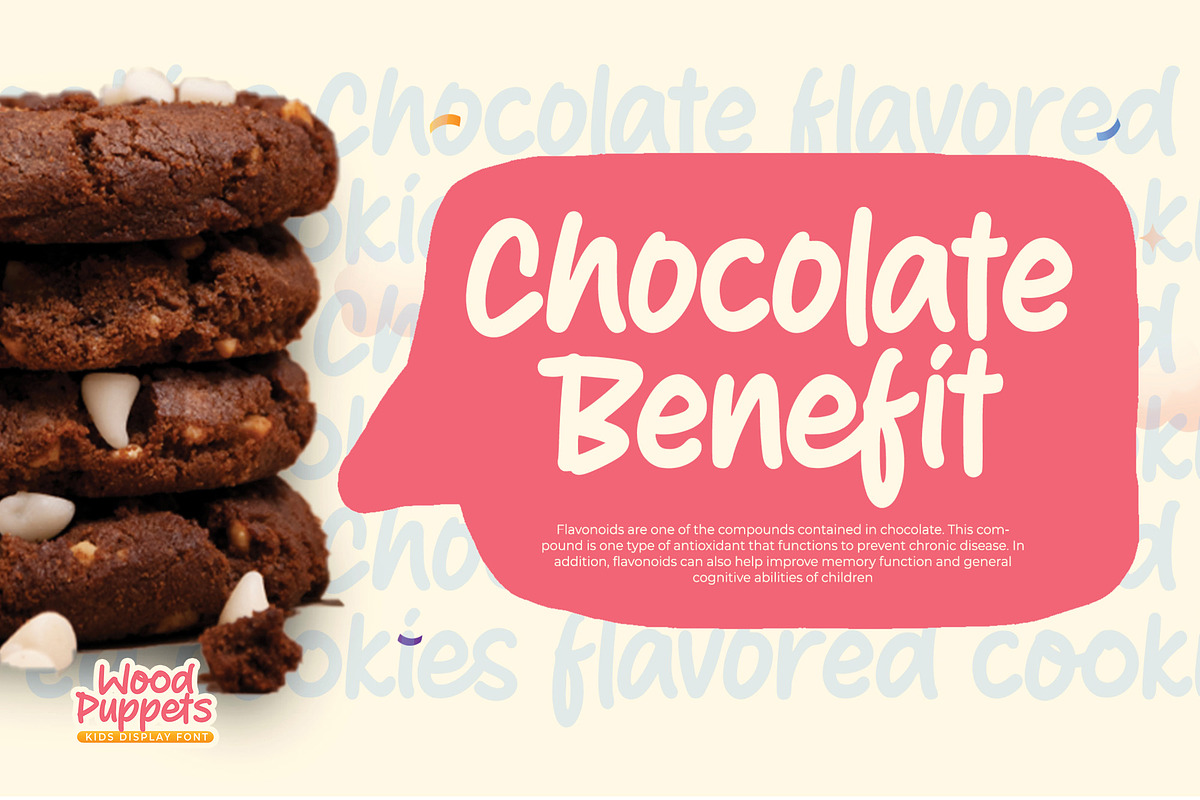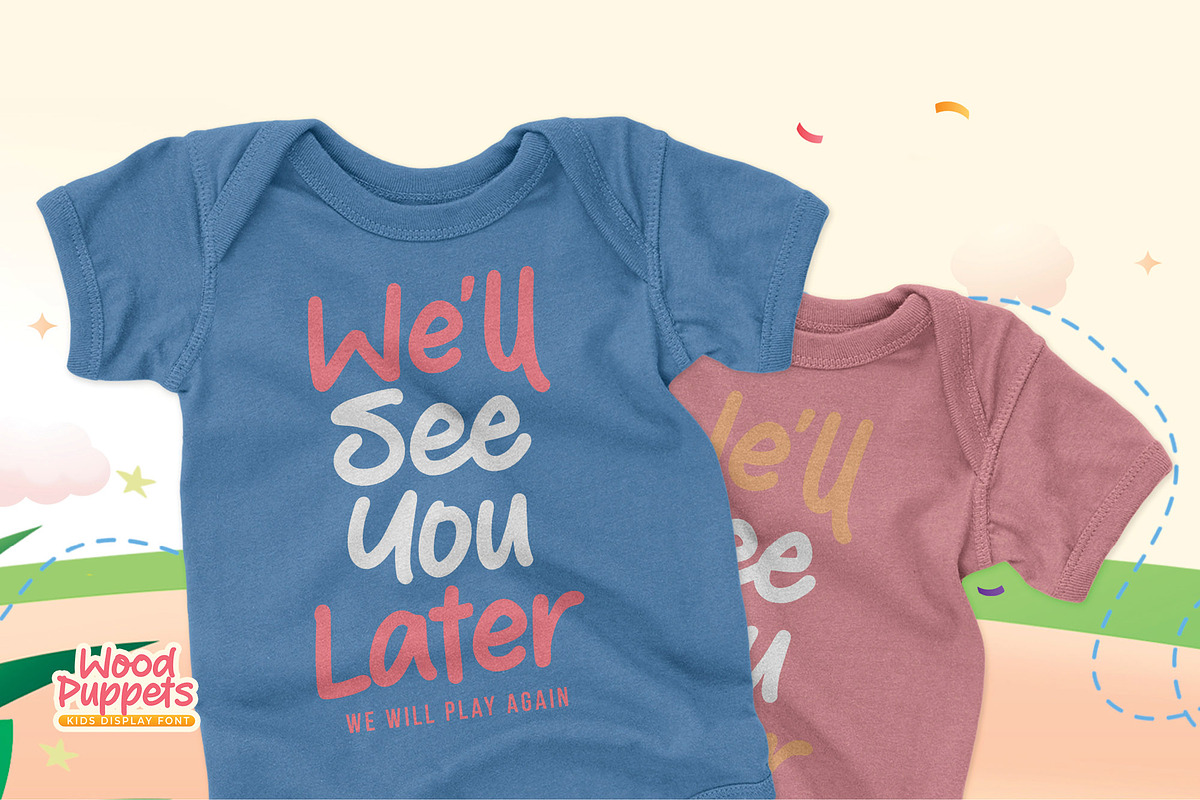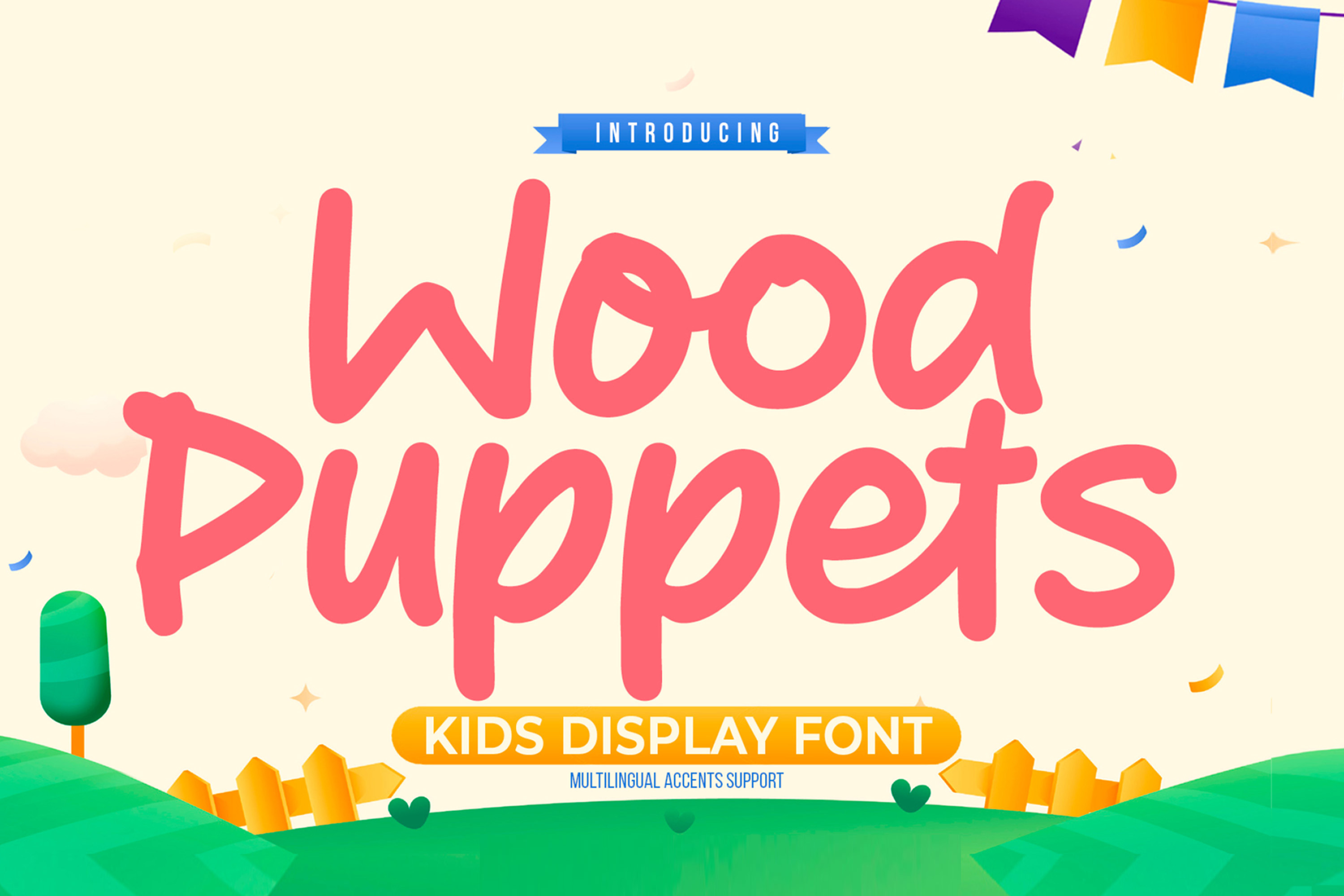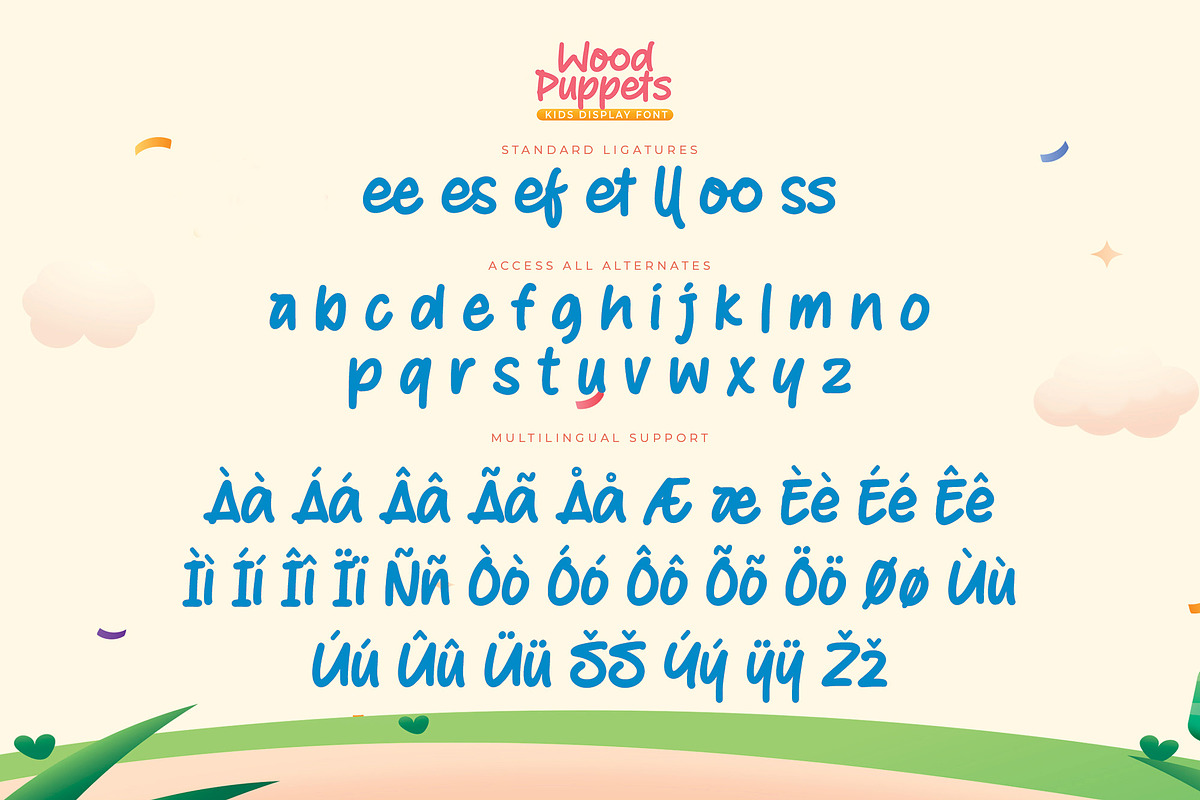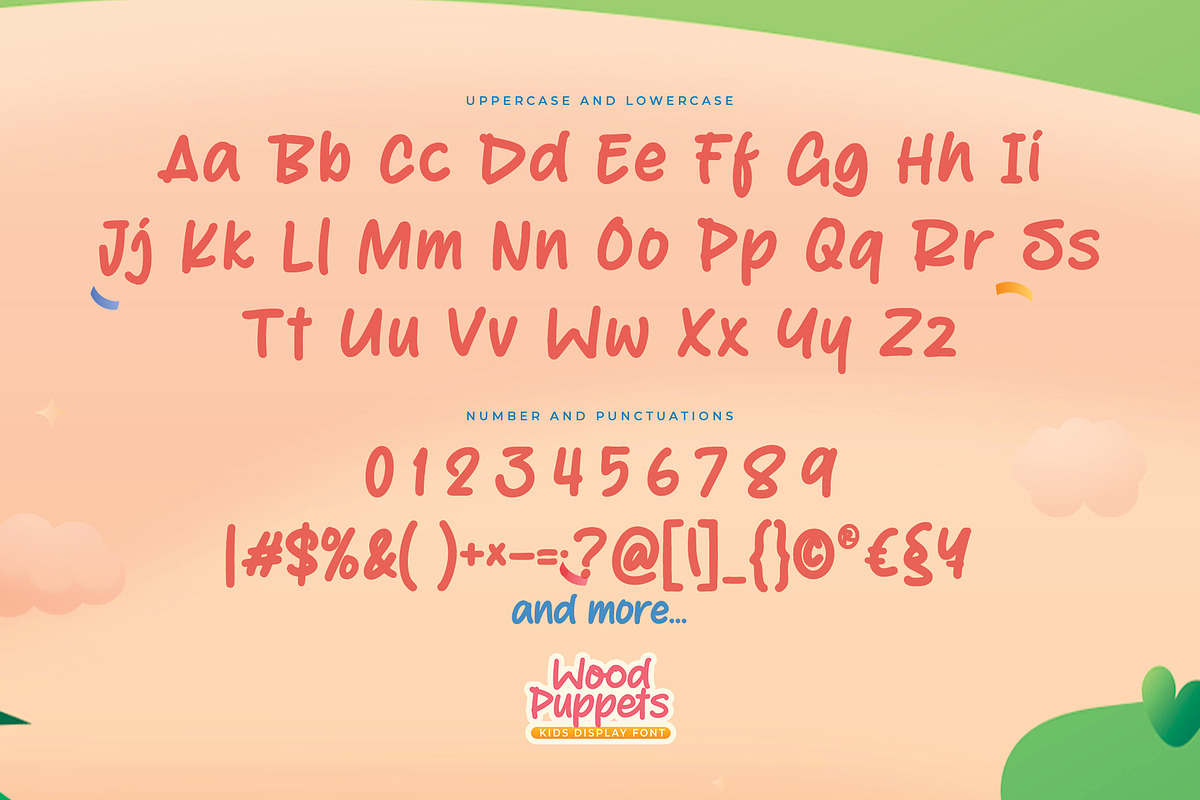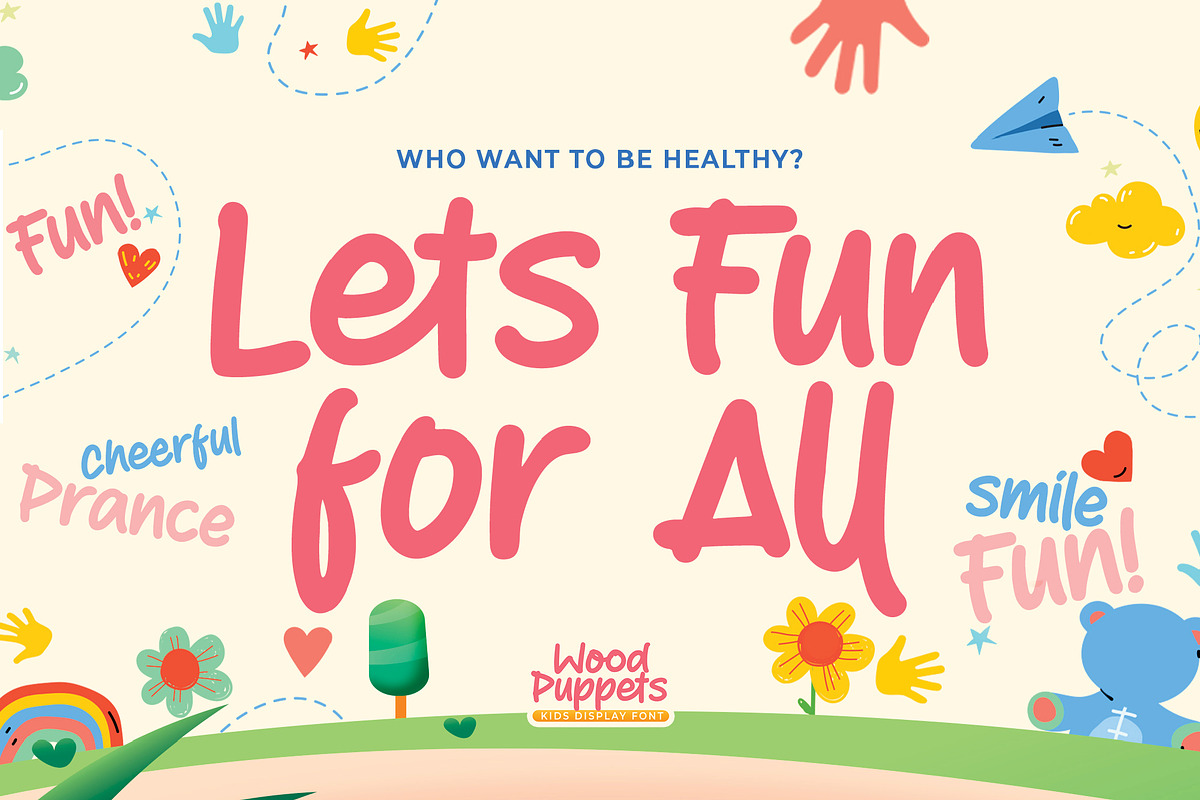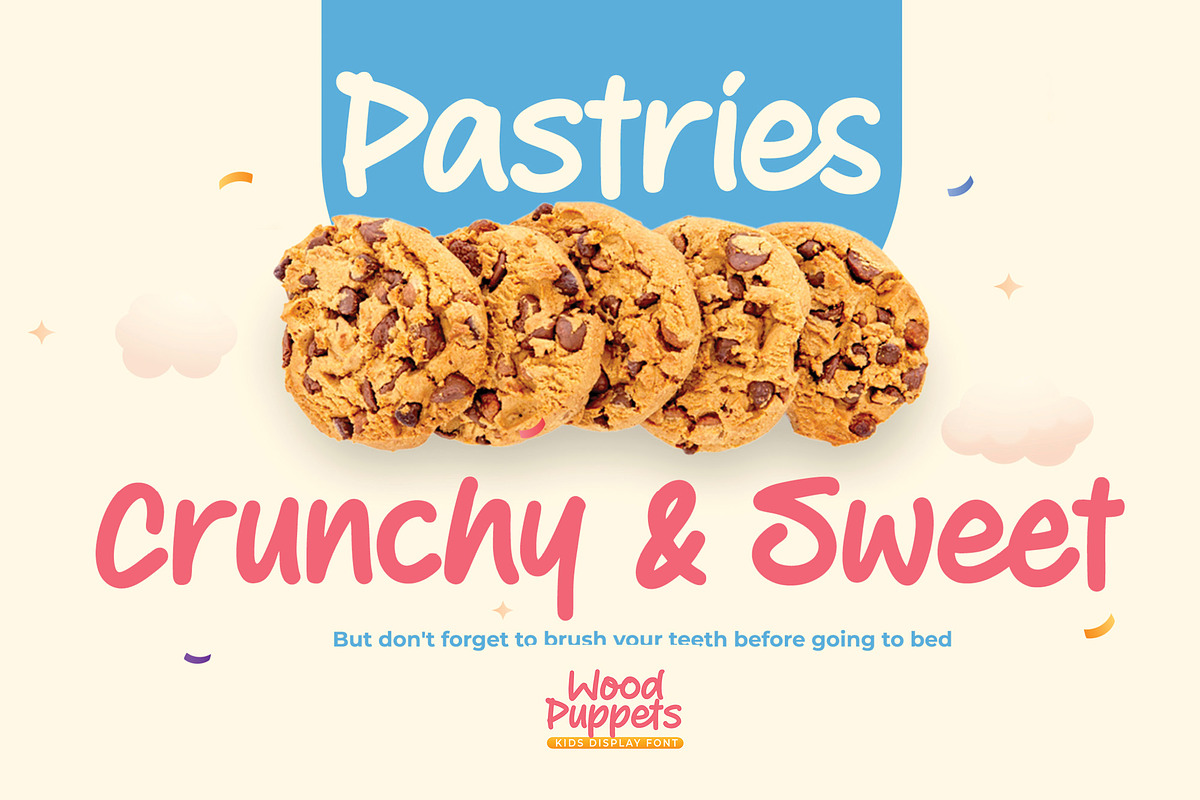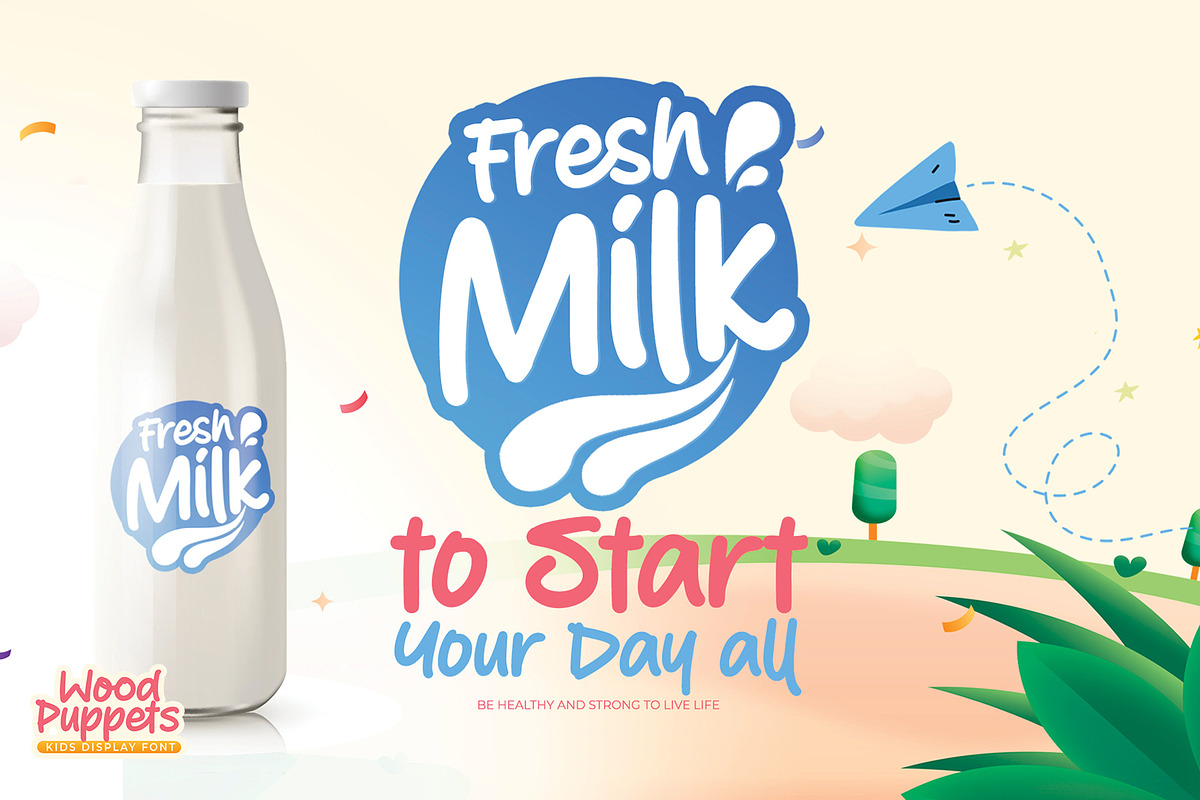
Wood Puppets – Kids Display font
Wood Puppets – Kids Display font is an Unique display Font that is written casually and quickly. Letters are made with Procreate. Then trace down into vector format, and carefully crafted into a typeface. That is why Wood Puppets_ _has a cute, and unique characteristic more natural look. You can activate Ligatures OpenType panel.
Wood Puppets_ _Perfect for designs, branding projects, Logo design,Quotes product packaging and another Project that require fun font.
Standard glyphs
Ligatures glyphs